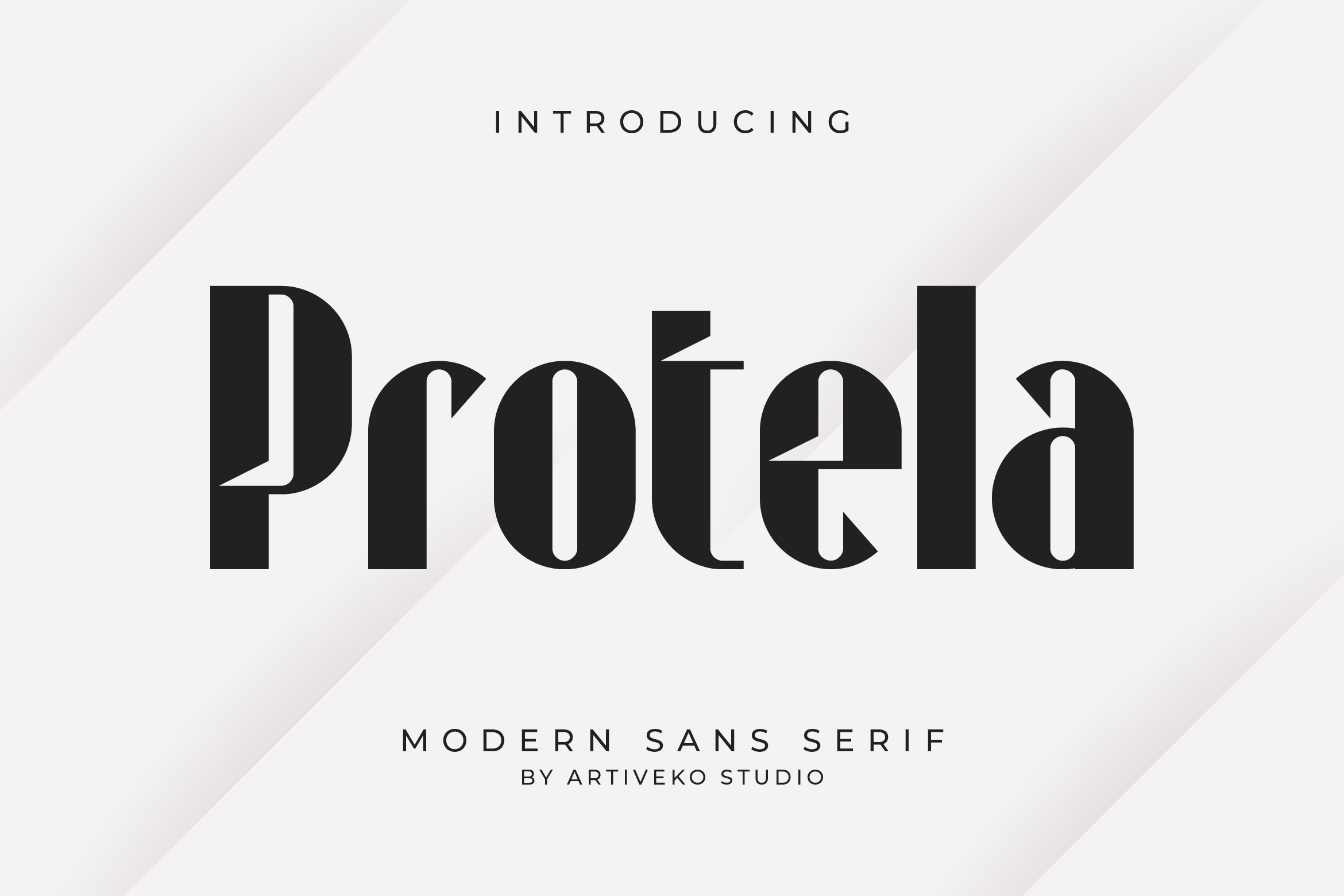
- Protela Contemporary Sans Serif Font
Protela is a contemporary sans serif font that combines strong geometry with sleek minimalism. Designed for versatility and impact, Protela offers a clean, confident look that works seamlessly across branding, packaging, editorial layouts, digital content, and user interfaces.
Its sharp structure and balanced proportions ensure high readability while giving your typography a bold and professional edge. Perfect for headlines, logos, or even body text, Protela adapts effortlessly to both print and digital applications.
The font includes uppercase and lowercase letters, numerals, punctuation, multilingual support, and a curated set of stylistic alternates to enhance creative possibilities.
Whether you’re building a modern brand identity or crafting a stylish editorial project, Protela delivers strength and elegance in every design.
Elevate your creative work with Protela — the sans serif that defines clean, modern design.